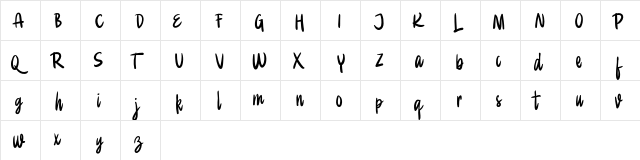
Panorama FREE Regular
Design Context for Panorama FREE Typeface
Panorama FREE is a composed and adaptable typeface that performs quietly and consistently across a wide range of design contexts.